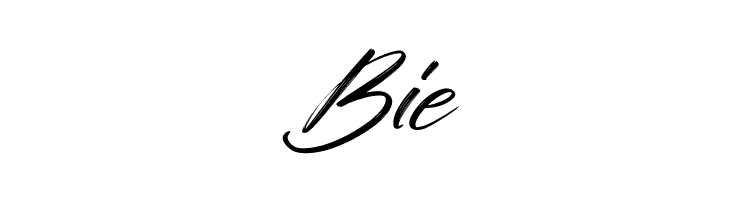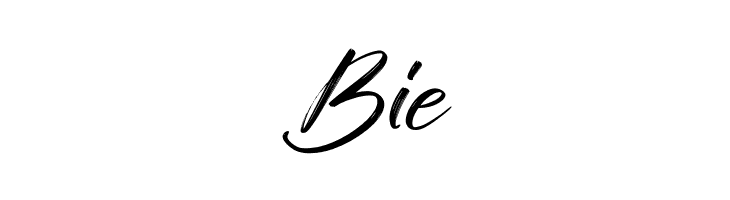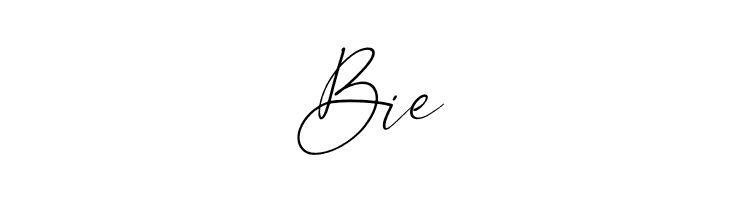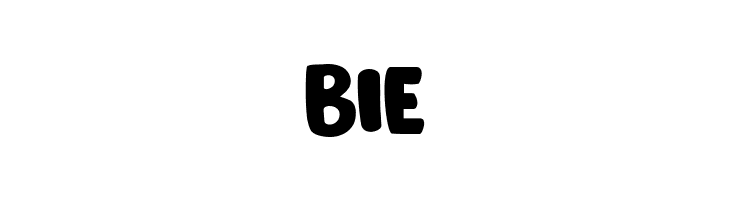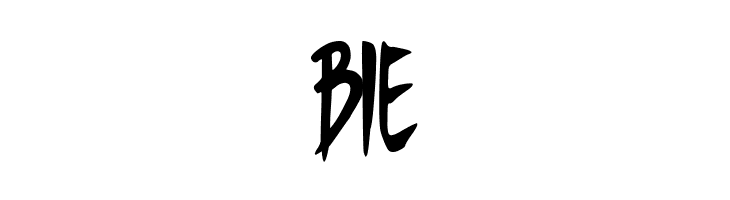
• Sunday Freedom Italic
A dynamic, cursive script font with elegant slant and consistent stroke width.
• Sunday Freedom
A dynamic and expressive script font with fluid, sweeping strokes.
• Yesterday Delmote
A casual, handwritten font with fluid, connected characters and a personal touch.
• Yesterday Delmote Italic
An elegant, flowing script font with smooth, cursive letterforms.
• Cute Snow
A playful, snowflake-adorned font perfect for festive and cheerful designs.
• Another Day V2
An elegant, flowing script font with ornate uppercase and smooth lowercase letters.
• Beachday
A bold, playful font with rounded, bubbly characters and a hand-drawn feel.
• Monday
A bold, energetic handwritten font with dynamic strokes and a lively feel.
• Morning Friday
A playful, handwritten font with medium contrast and dynamic slant.
• Sunday Fun
A playful, handwritten script font with dynamic, slanted characters.